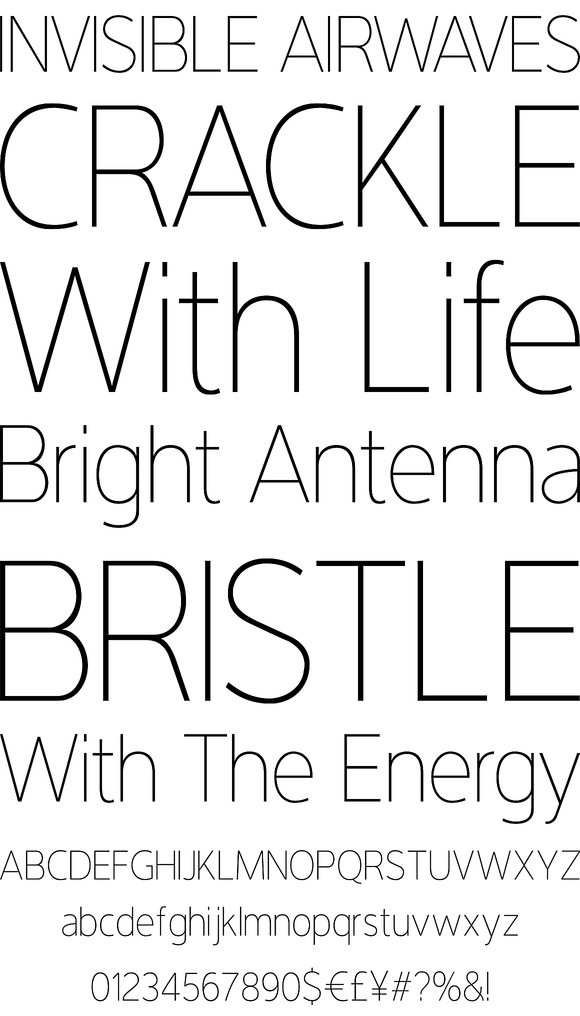
Interval Sans Pro Condensed
The new Interval Sans Pro is a pratical choice when you need a contemporary sans serif for text typography, headlines, signage or brands creation. This new version has many more OT features like small caps, ligatures, stylistic set, localized form. The strong familial relationships between all the styles and weights make it a serviceable choice for large graphic design projects that require versatility with consistency. Interval Sans Pro is available in 7 weights in 4 styles and available for 40 languages.